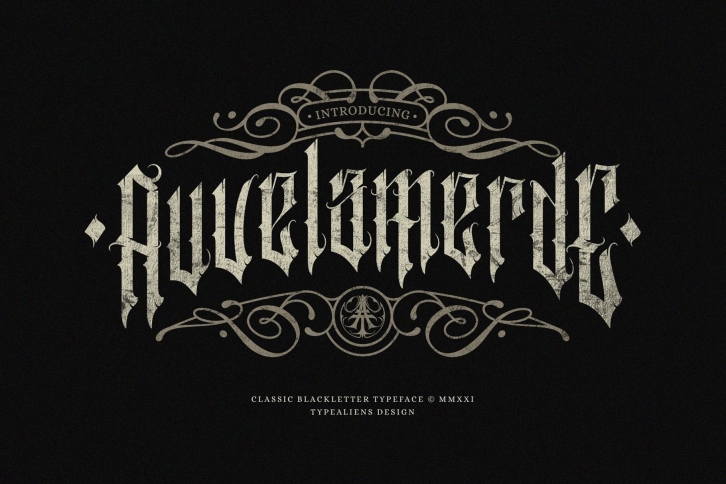
Auvelamerde is a beautiful font that was designed by llhamtaro. It's a great choice for designers and creatives who need such a font. It was released on December 24, 2021 and the file size is 21.93 MB. Auvelamerde may give a more youthful, expressive and casual look to your project. It is a very beautiful, refined, elegant, and high-quality font.